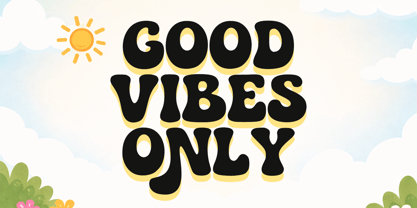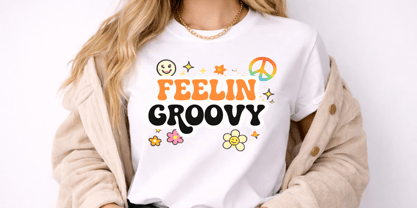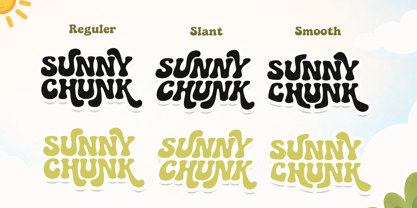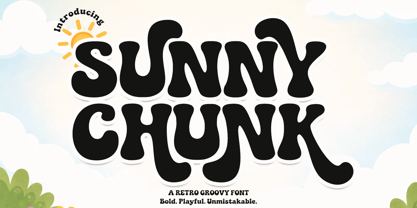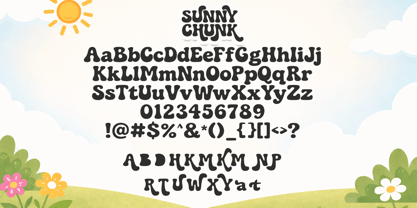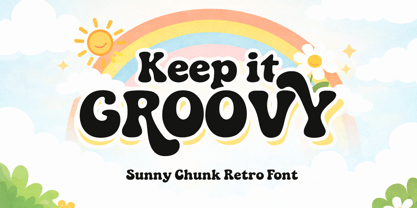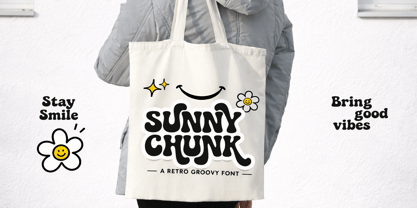
Sunny Chunk
by Cocodesign
The Sunny Chunk Font Family was designed by Muhammad Zaini and published by Cocodesign. Sunny Chunk contains 3 styles and family package options. More about this family
Sunny Chunk is a bold retro groovy display font inspired by vintage pop culture, playful signage, and cheerful 70s aesthetics. Designed with thick curves, soft edges, and eye-catching character shapes, this typeface brings instant personality to any design project. Its chunky letterforms create a fun, energetic, and nostalgic vibe while staying clean and highly readable. Perfect for branding, posters, packaging, headlines, logos, social media graphics, merchandise, children-themed designs, music covers, stickers, invitations, and creative editorial layouts. Sunny Chunk blends playful charm with strong visual impact, making it an excellent choice for designers who want standout typography with a warm retro spirit.
Designers: Muhammad Zaini
Foundry: Cocodesign